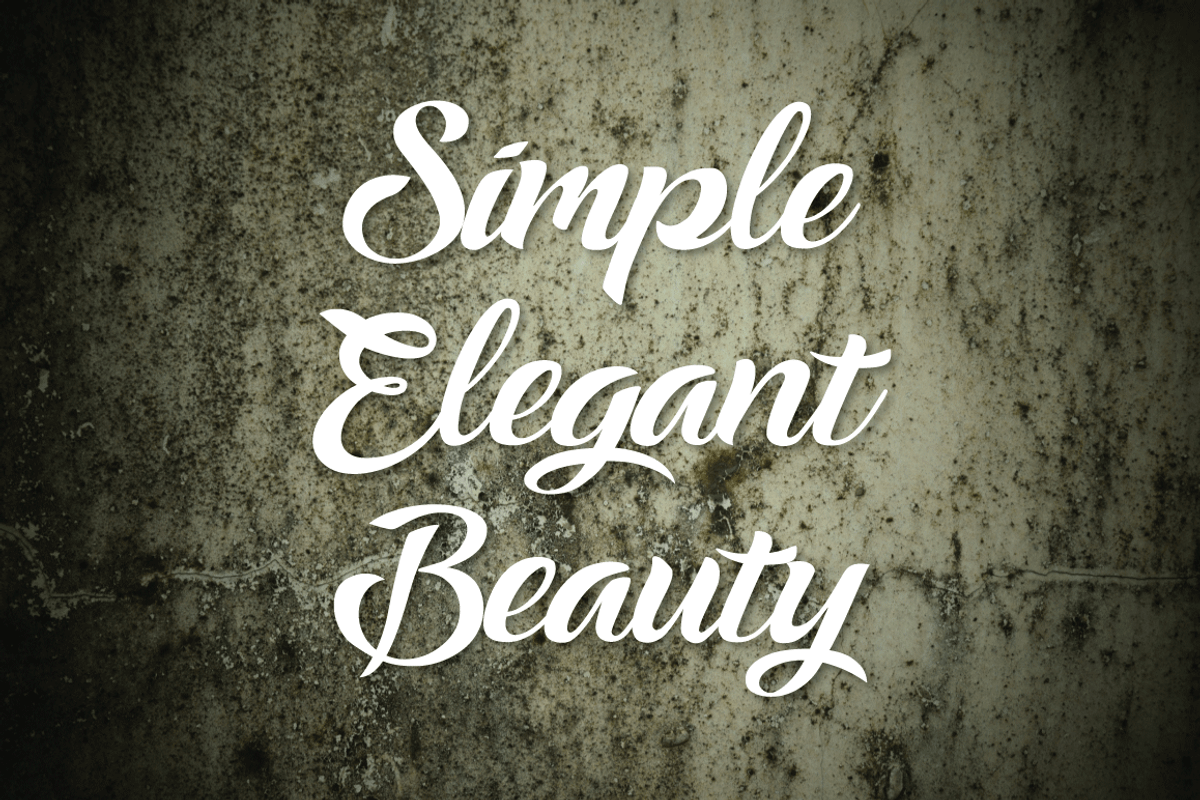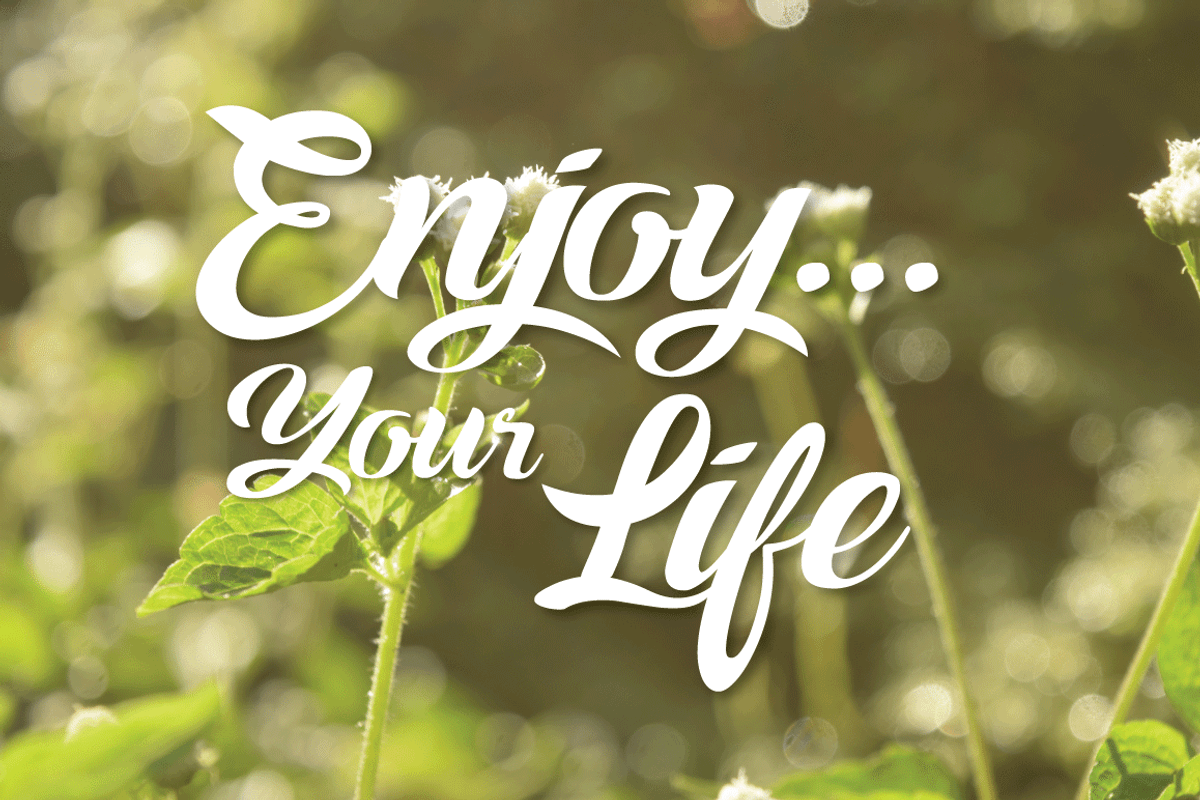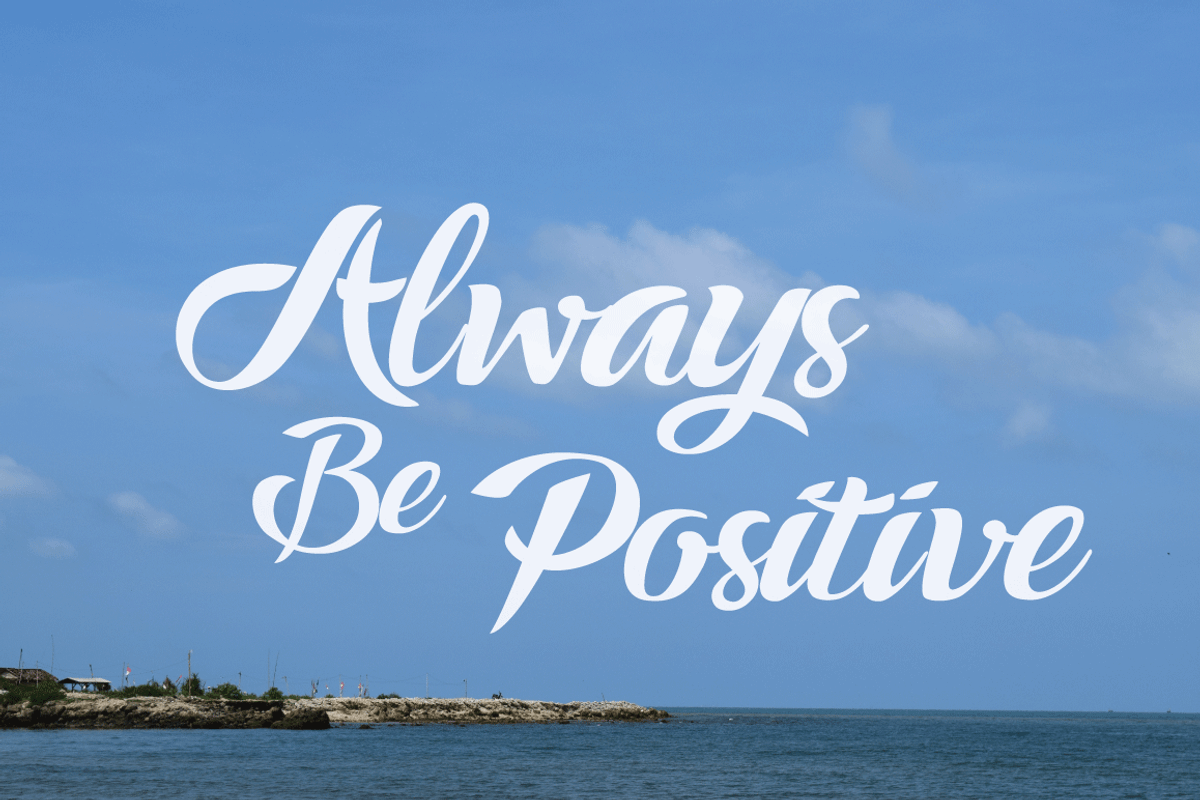
Ampera Font
Ampera Font by menangan studio is a font selected for branding, posters, packaging, typography.
Why Ampera Font is worth a look
Ampera Font by menangan studio fits naturally into Branding, posters, packaging, typography.